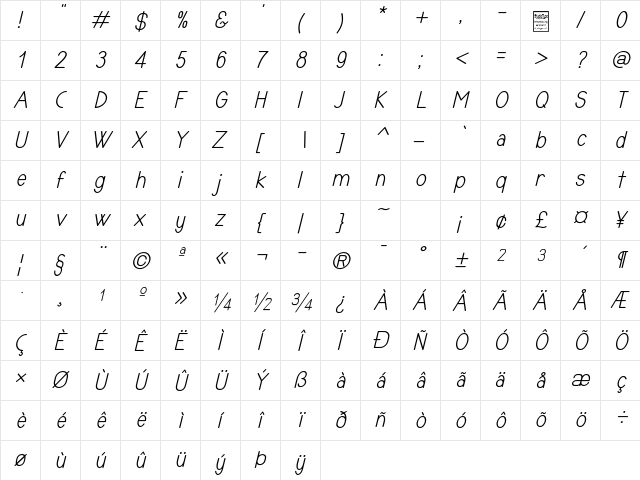
TYPONOME Italic
| Foundry | StudioTypo |
| Designer | Mehmet Abac |
Design Context for TYPONOME Typeface
TYPONOME takes a measured approach to typography — its balanced proportions and neutral character make it a reliable workhorse for both digital and print work. The dynamic lean of this cut emphasises speed and emphasis in any layout.
Pro Tip: Try TYPONOME for annotation and caption copy alongside an upright companion — the contrast in angle creates a dynamic but ordered typographic system.